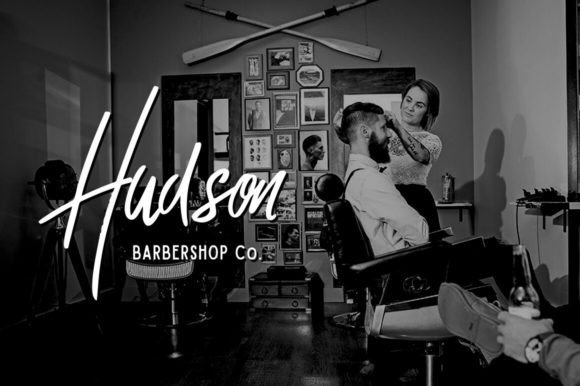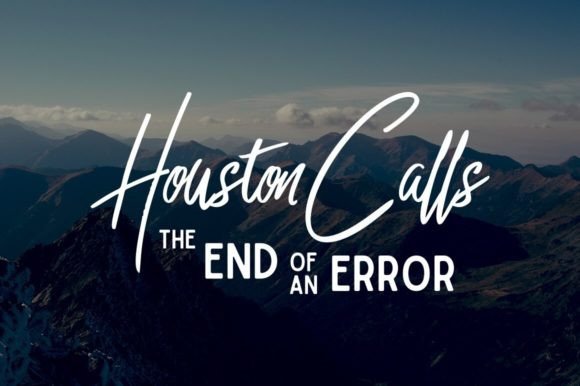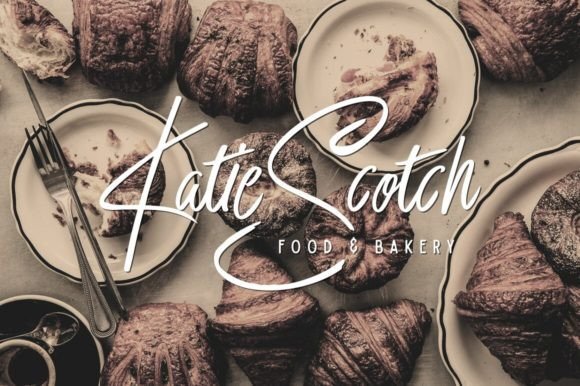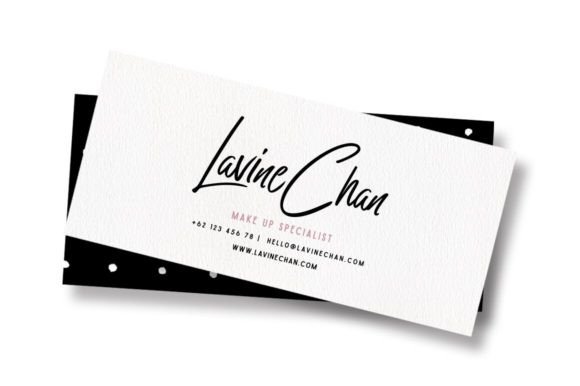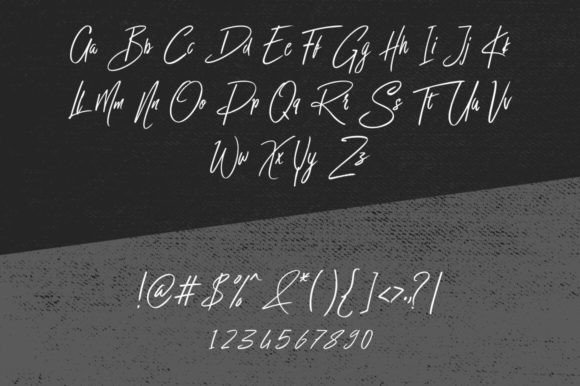
The Bird House Font: A Modern Handwritten Marvel
A Cool and Modern Handwritten Font
Bird House is a cool and modern handwritten font designed using markers. This font is perfect for branding, signatures, and more. Its unique, marker-drawn aesthetic gives it a personal and approachable feel that’s hard to find in more traditional fonts.
So, what do I love about the Bird House font? 🤔 Here are a few highlights:
- ✨ Unique and eye-catching: The Bird House font has a distinct, hand-drawn quality that sets it apart from more traditional fonts.
- ✅ Highly versatile: This font can be used for a wide range of projects, from branding and advertising to packaging and signage.
- 💕 Emotional connection: The personal, handwritten feel of the Bird House font makes it easy to connect with your audience on an emotional level.
- ⚠️ Limited use in formal contexts: The Bird House font is quite casual, so it may not be the best fit for formal projects or contexts.
- 🤔 Some letters may require adjustment: As with any handwritten font, some letters may require adjustment to get the spacing and kerning just right.
The Designer Inspiration Behind Bird House
While the true story behind Bird House remains a mystery, it’s easy to imagine that the designer was inspired by the world around them – perhaps a stroll through a park, or a morning spent bird-watching. The result is a font that’s both modern and timeless, with a unique personality that’s sure to capture attention.
| What is the Bird House font best used for? | The Bird House font is perfect for branding, signatures, and creative projects where a personal touch is desired. |
| Is the Bird House font suitable for formal contexts? | No, the Bird House font is quite casual, so it’s best used in informal contexts where a personal touch is desired. |
| Does the Bird House font support OpenType features? | Yes, the Bird House font supports OpenType features, such as glyphs and stylistic alternates, which can be accessed in compatible software. |